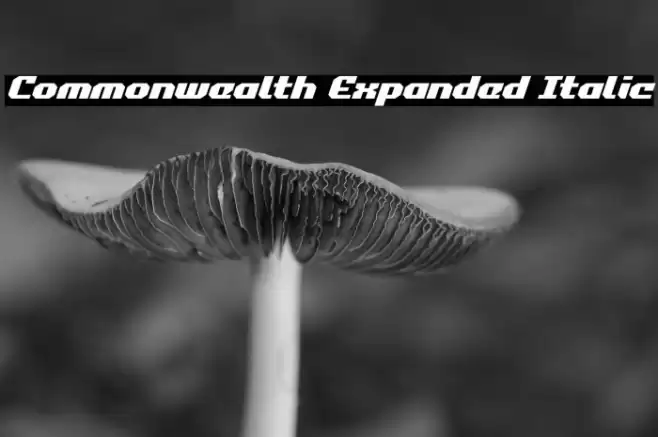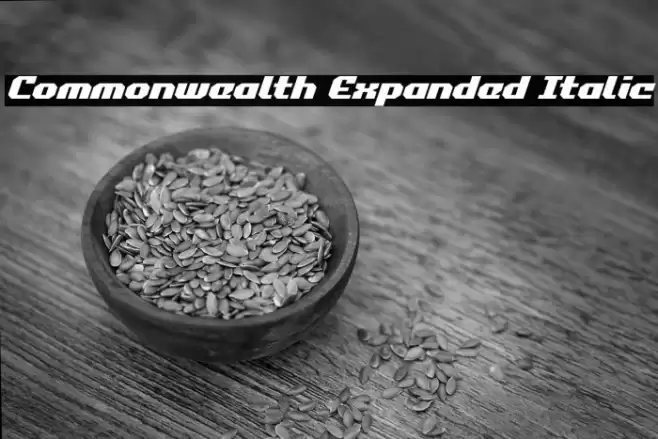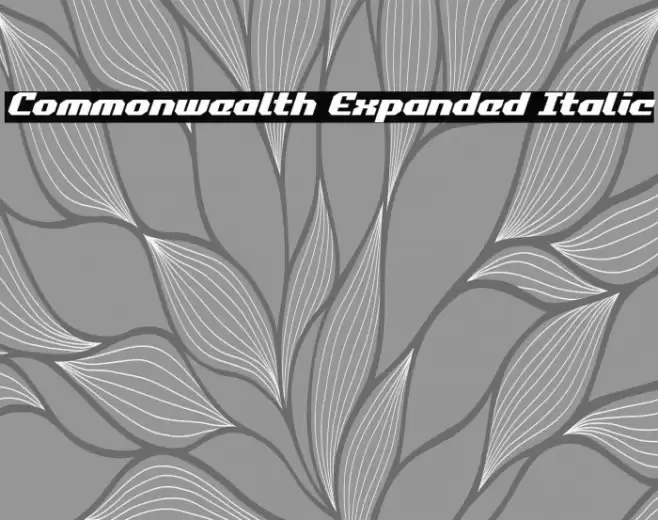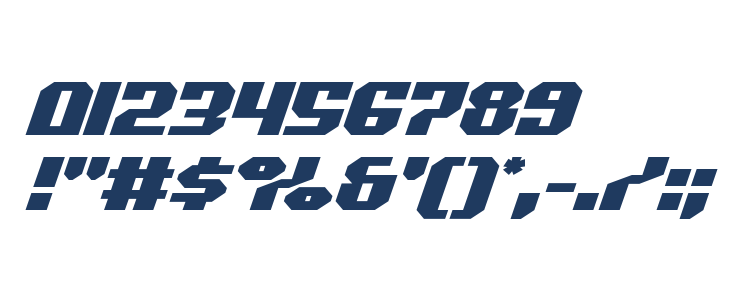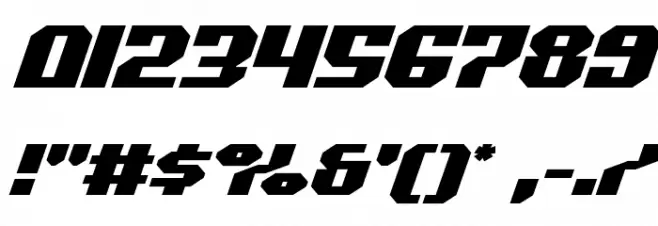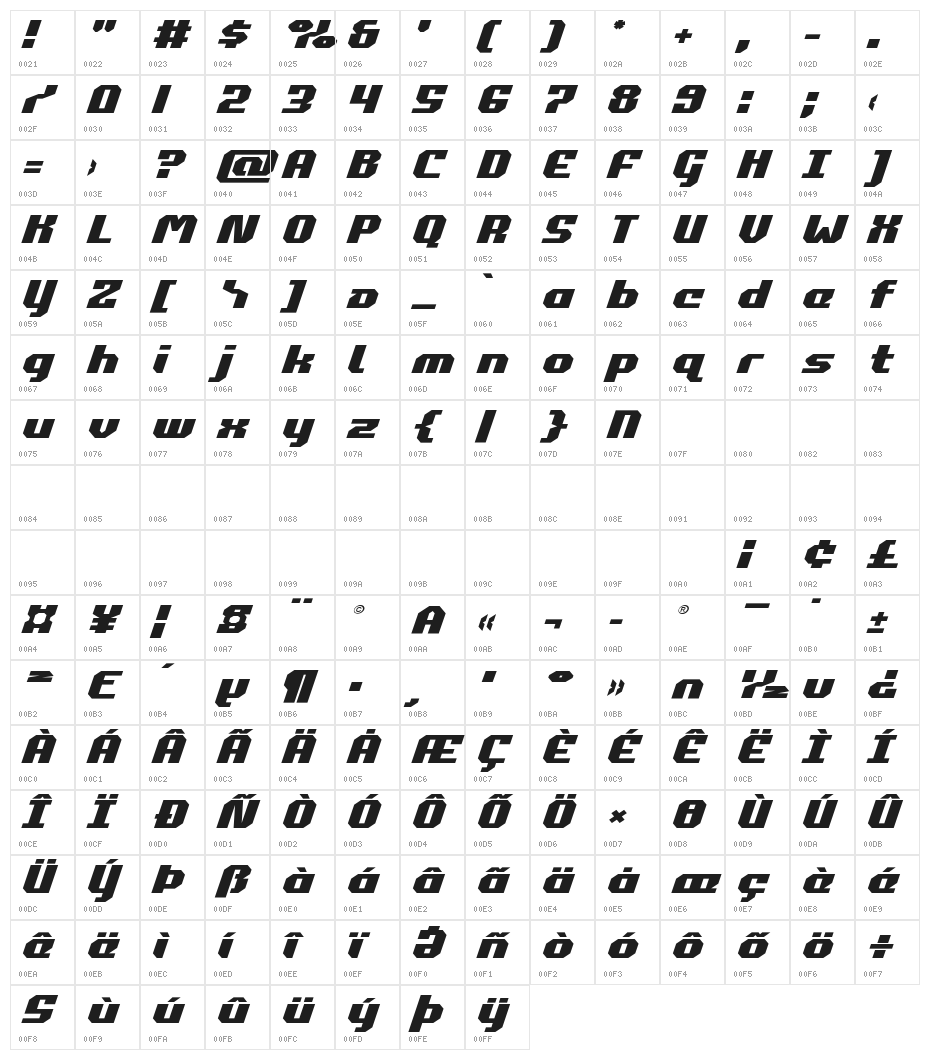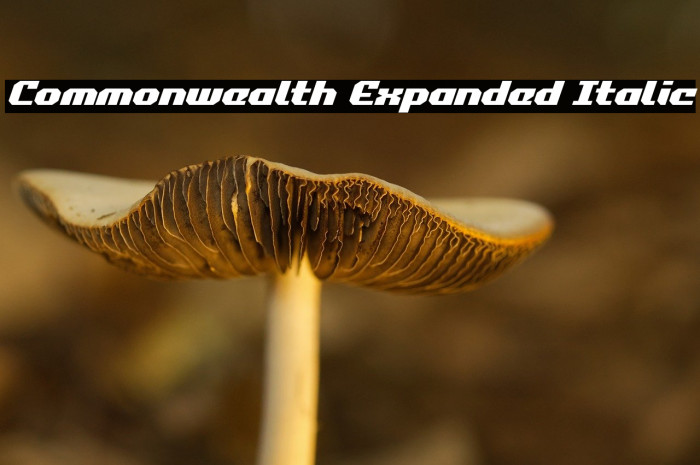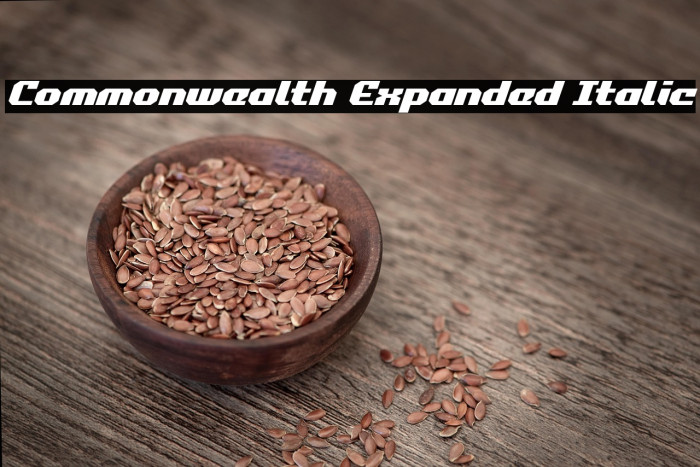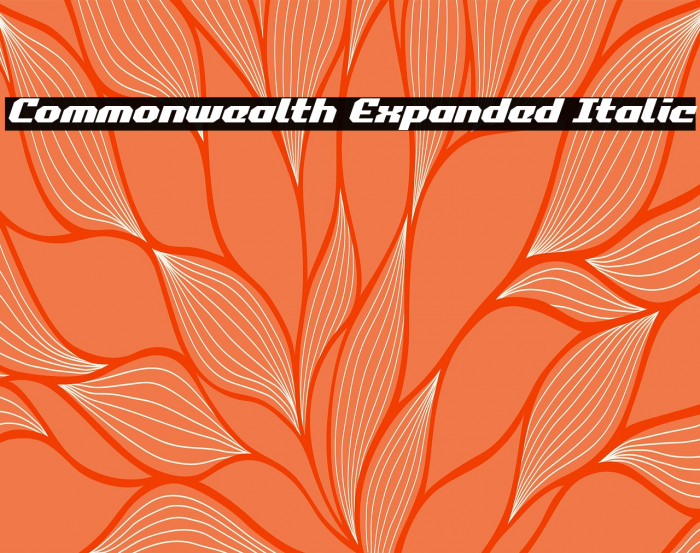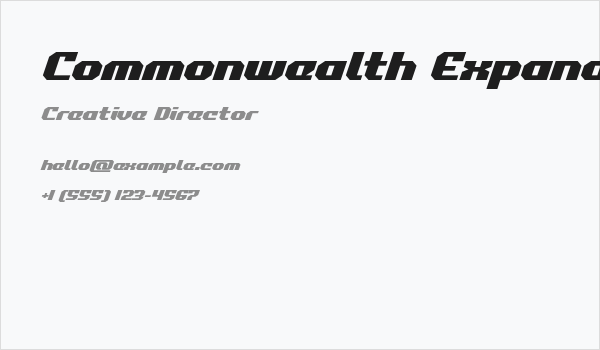
Commonwealth Expanded Italic Font
Commonwealth Expanded Italic Description
This font features a bold and dynamic style with an italic slant, giving it a sense of motion and energy. The characters are expanded, providing a wide and impactful appearance. The angular and geometric shapes of the letters contribute to a modern and futuristic aesthetic. The uppercase and lowercase letters maintain a consistent design, while the numerals and special characters complement the overall style. This font is suitable for projects that require a strong and assertive visual presence.
A bold, expanded italic font with a modern, geometric style from Uncategorized fonts.
- Font: Commonwealth Expanded Italic
- Weight: Expanded Italic
- Proposed Projects: Ideal for branding, sports team logos, posters, and dynamic headlines.
- Width: Expanded